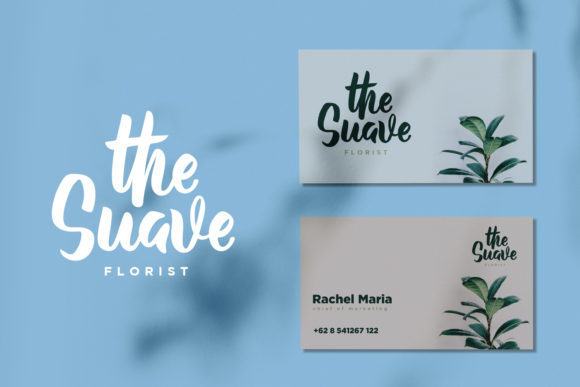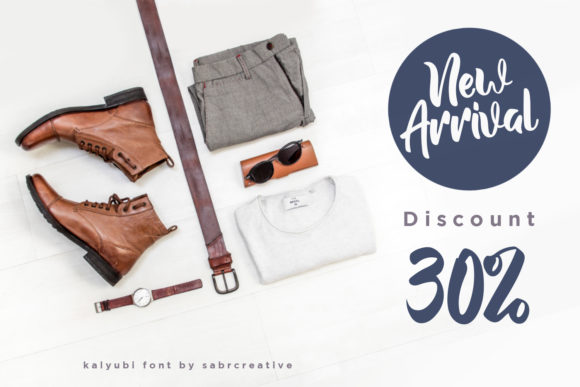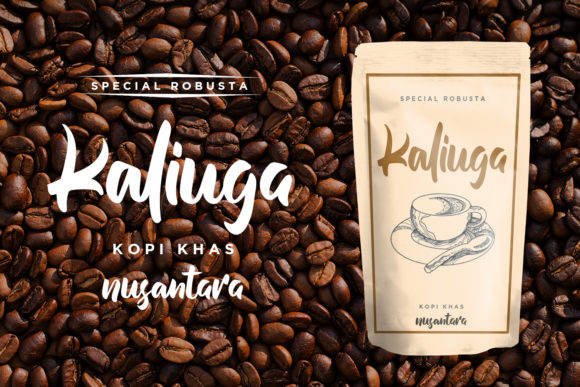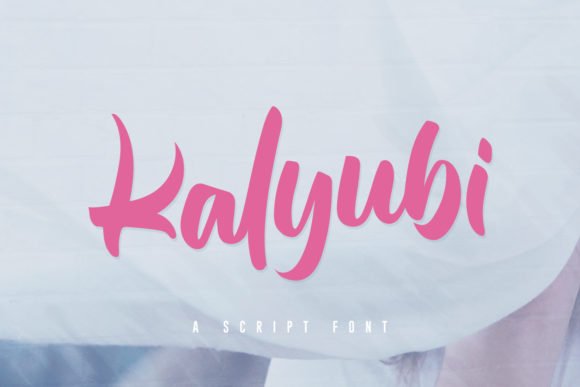
Introduction to Kalyubi Font
Kalyubi is a lighthearted and warm script font full of charm.
Get inspired by its unique approach to design .
Key Features of Kalyubi Font
Why Choose Kalyubi Font?
Kalyubi Font offers exceptional quality and versatility, making it a valuable addition to your design toolkit. Whether you’re creating for personal projects or commercial use, Kalyubi Font delivers professional results.